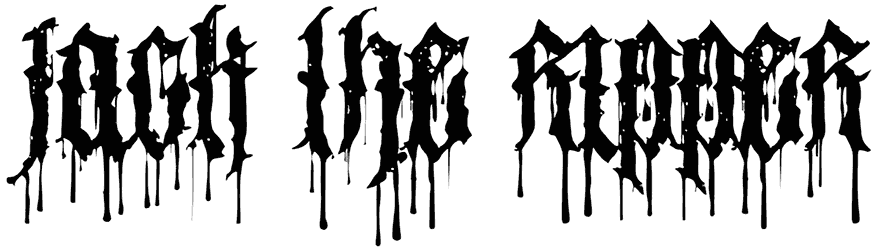
Jack the Ripper Font
Designed byFont Monger
Still not sure how to scare the hell out of people in your next creepy design? Well, you may not know it, but you’re already looking at the answer. You’re not going to believe what a dreadful tone Jack the Ripper gives to your writing as a dripping font.
Everyone can detect the demonic background of your design even from a distance. That’s how openly this all-caps blood font terrifies people in horror movie promos, even with no numerals included.